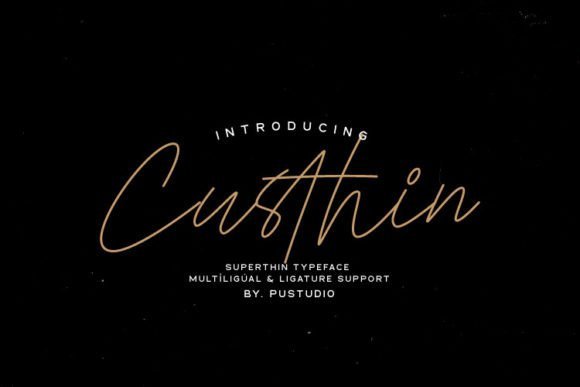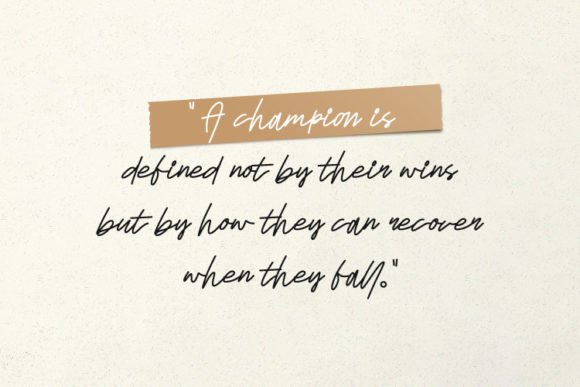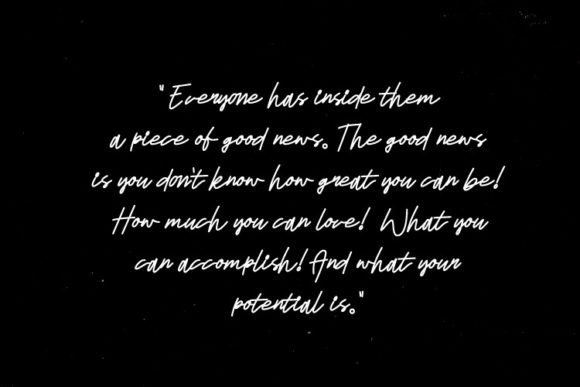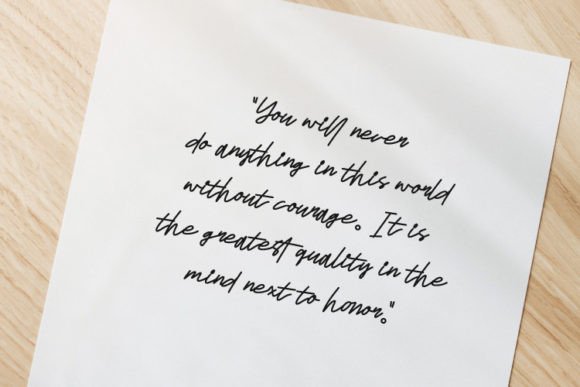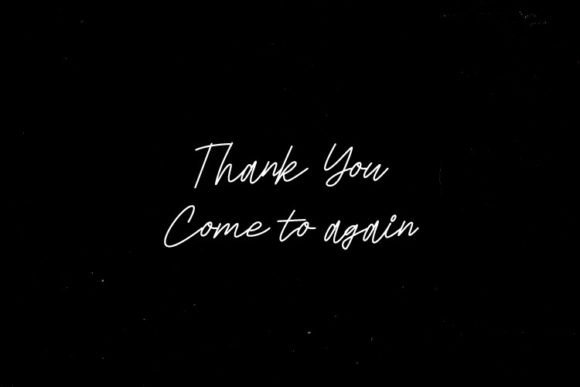
The Perfect Touch for Your Creative Masterpiece
Have you ever been working on a project, pouring your heart and soul into every detail, and then, suddenly, you stumble upon that one element that takes it from good to great? For many designers, it’s finding the perfect font that makes their work truly shine.
Enter the Custhin Font, a stunning script font with superthin type that adds a touch of elegance and charm to any design. Whether you’re creating a beautiful invitation, a heartfelt letter, or a stunning visual display, Custhin Font is the perfect addition to elevate your work.
With its unique and delicate characters, Custhin Font is a valuable asset for any designer looking to add a personal touch to their projects. And, with its versatility, it can be used on cutting machines to create custom designs and decorations, making it a must-have for any crafty creative.
Custhin Font Key Features
- Unique Characteristics: The font features a distinctive, modern design with clean lines and a minimalist aesthetic, making it suitable for a wide range of design projects.
Custhin Font Review
I recently had the chance to work with the Custhin Font, and I must say it’s a mixed bag. Here are my honest thoughts.
- Clean and modern design: The Custhin Font has a sleek and contemporary look that’s perfect for modern designs.
- High legibility: The font is easy to read, even at smaller sizes, making it suitable for body text and headings.
- Customization options: The font offers a range of weights and styles, allowing for a good level of customization.
- Limited language support: The Custhin Font only supports a limited range of languages, which may be a concern for global brands.
- No bold or italic variations: While the font offers a range of weights, it doesn’t provide bold or italic variations, which may be a limitation for certain design projects.
- Not suitable for headlines: While the font is legible, it’s not particularly striking or attention-grabbing, making it less suitable for headlines.
Overall, the Custhin Font is a solid choice for modern designs, but its limitations may make it less suitable for more complex or global projects.
Custhin Font Practical Application Guide
Getting the Most Out of Custhin Font
To get the most out of Custhin Font, use it for:
Headings and titles to add a touch of elegance and sophistication.
Body text to create a clean and modern look.
Logos and branding elements to create a unique and recognizable identity.
Custhin Font is commonly used for:
Business cards and marketing materials.
Web design and digital products.
Alternatives to Custhin Font
Open Sans is a clean and modern sans-serif font. It is ideal for body text, headings, and other content where readability is crucial. It is highly legible even at small font sizes, making it perfect for digital products, websites, and mobile apps.
Compared to Custhin Font, Open Sans is more versatile and widely used in various design projects. While Custhin Font has a more condensed feel, Open Sans has a more neutral and approachable look.
Lato is a modern sans-serif font with a friendly and approachable feel. It is suitable for use in headings, body text, and other content where a touch of sophistication is needed. Lato is highly legible and works well in both print and digital mediums.